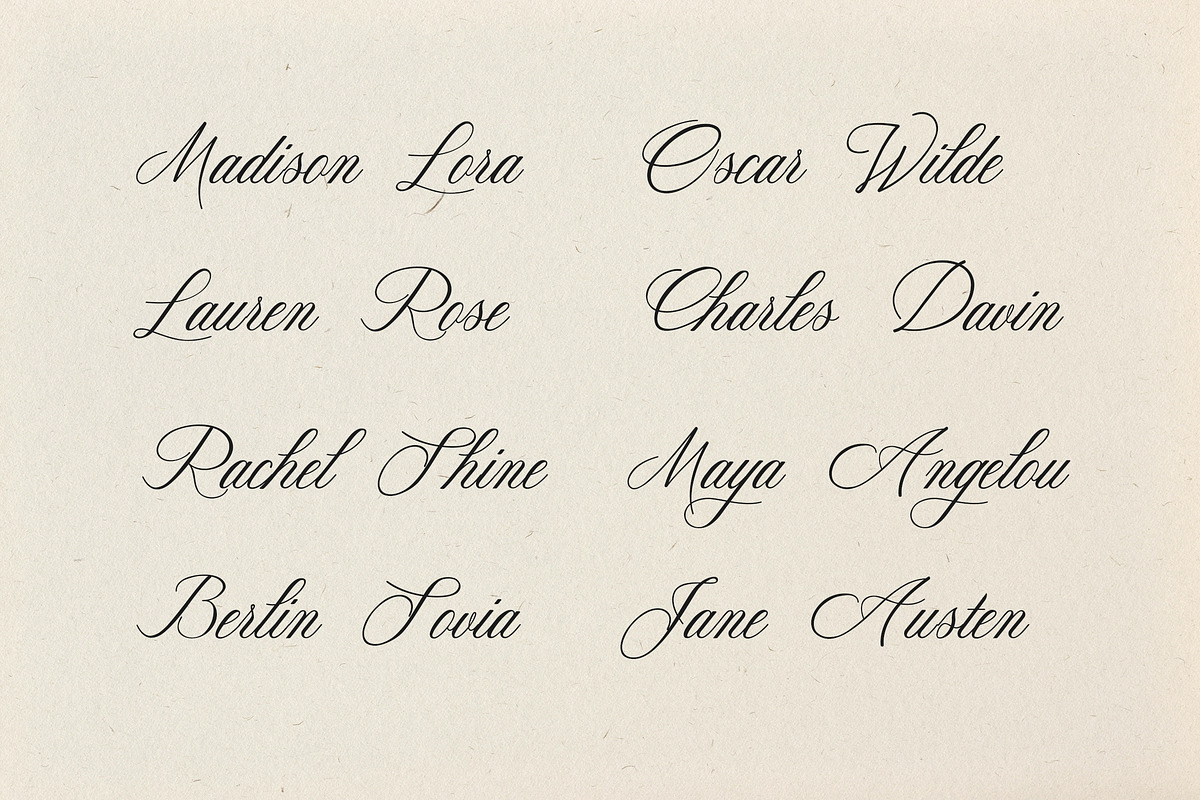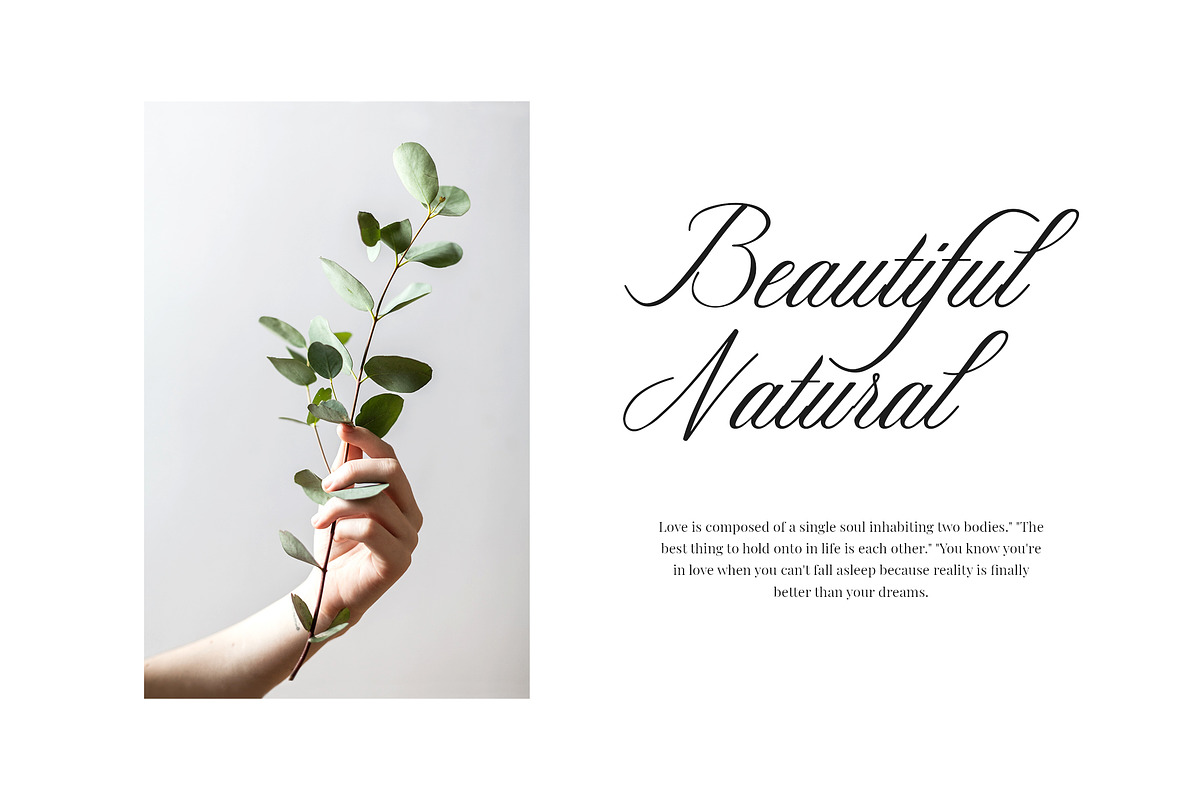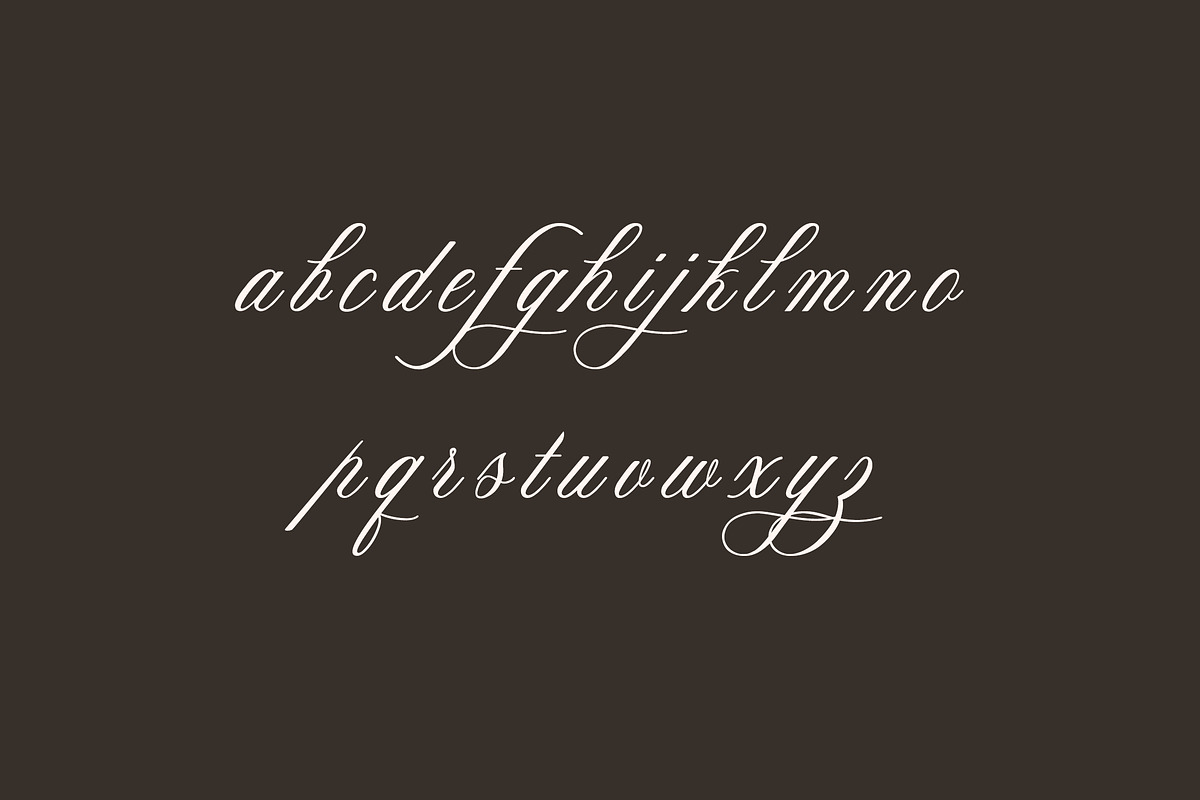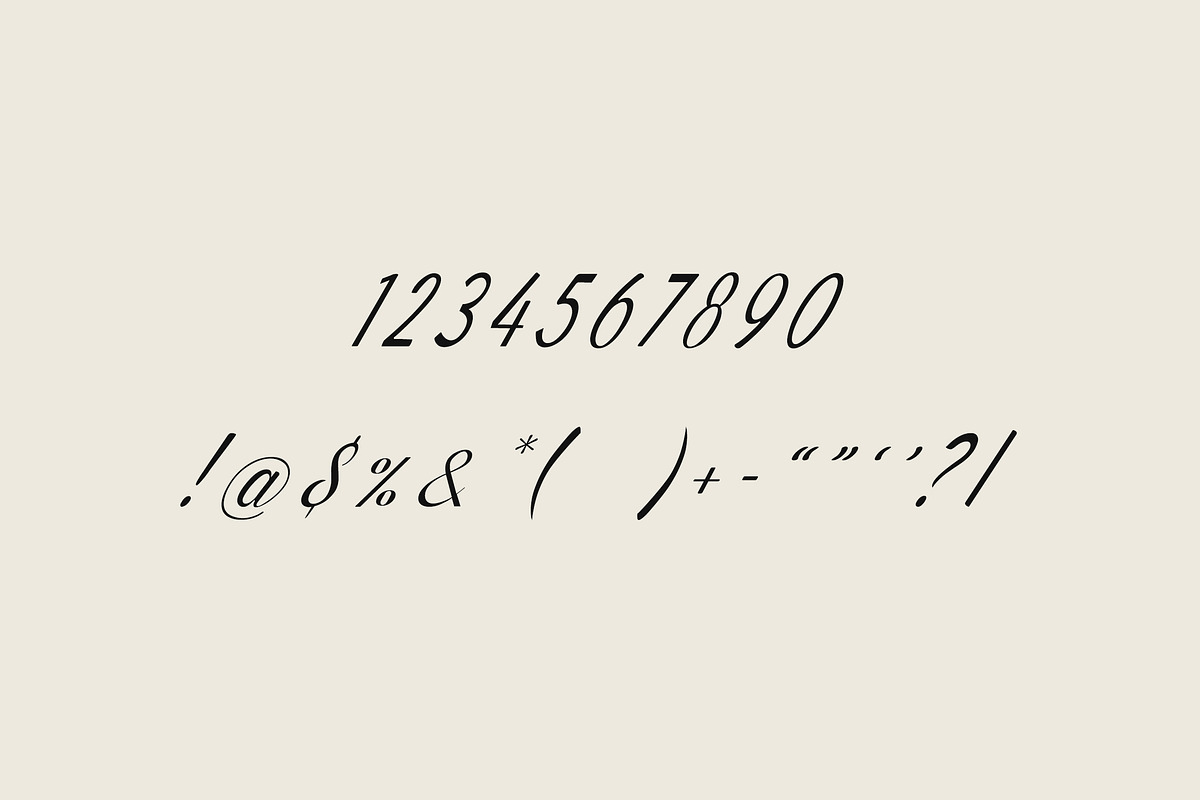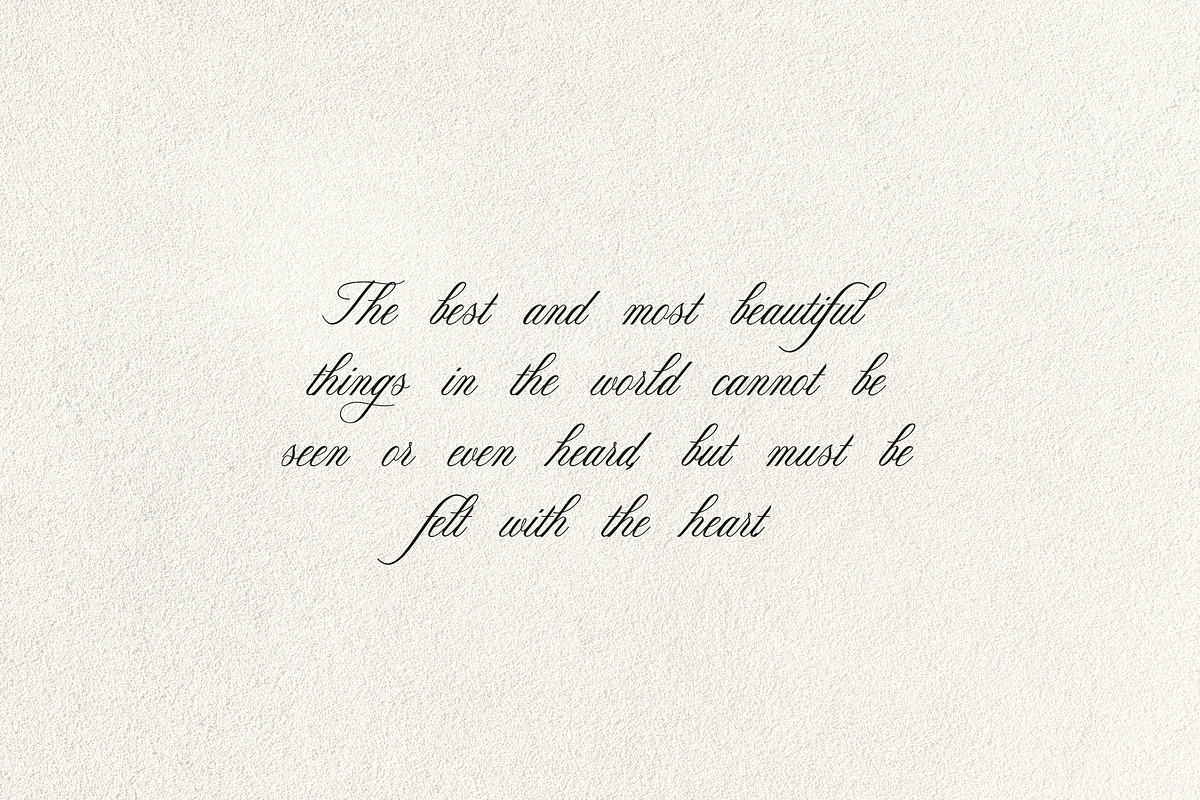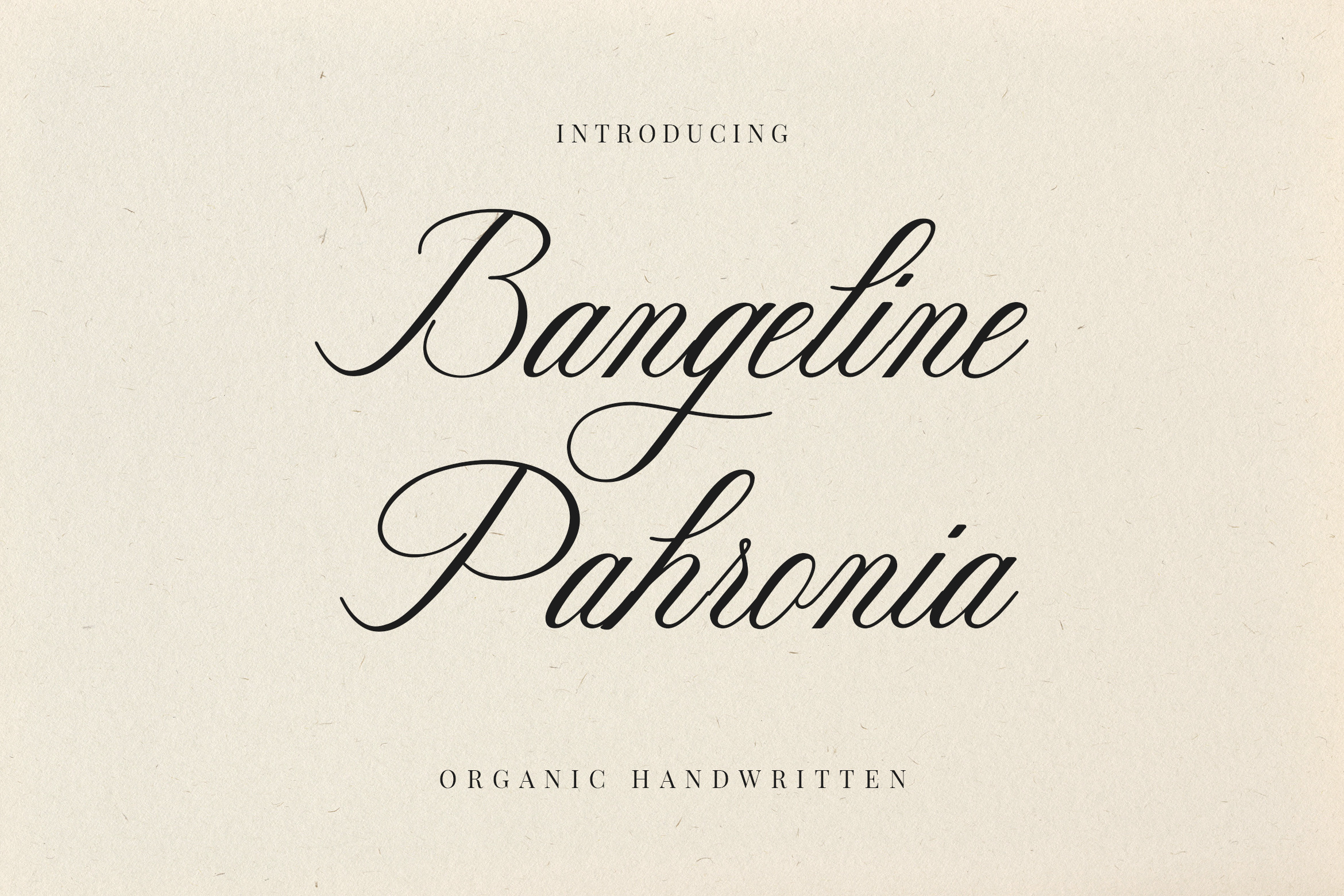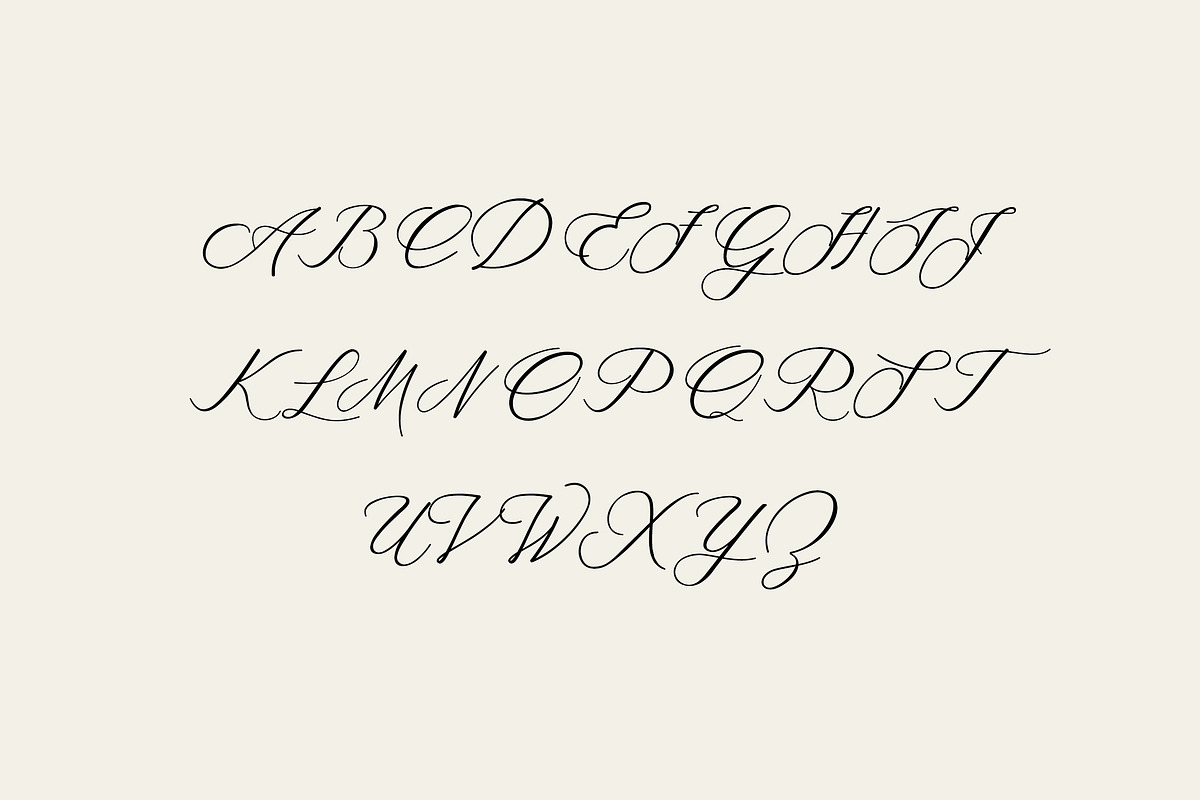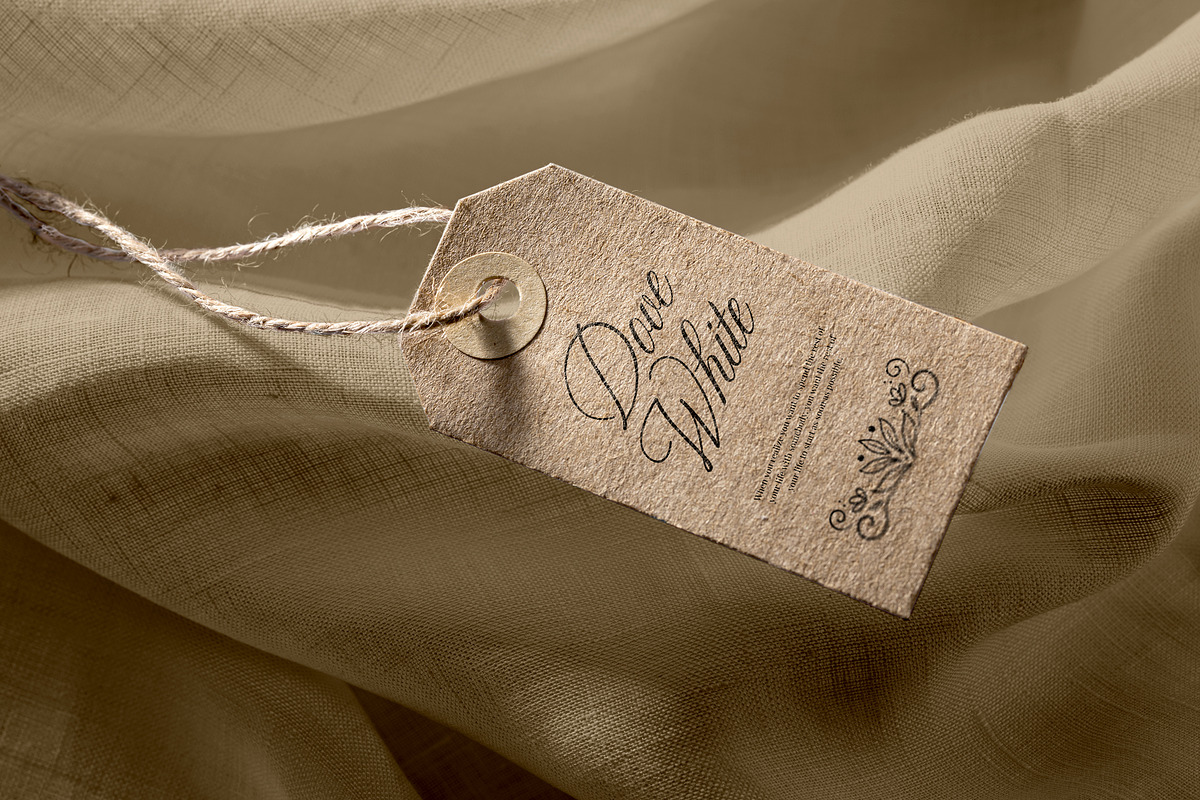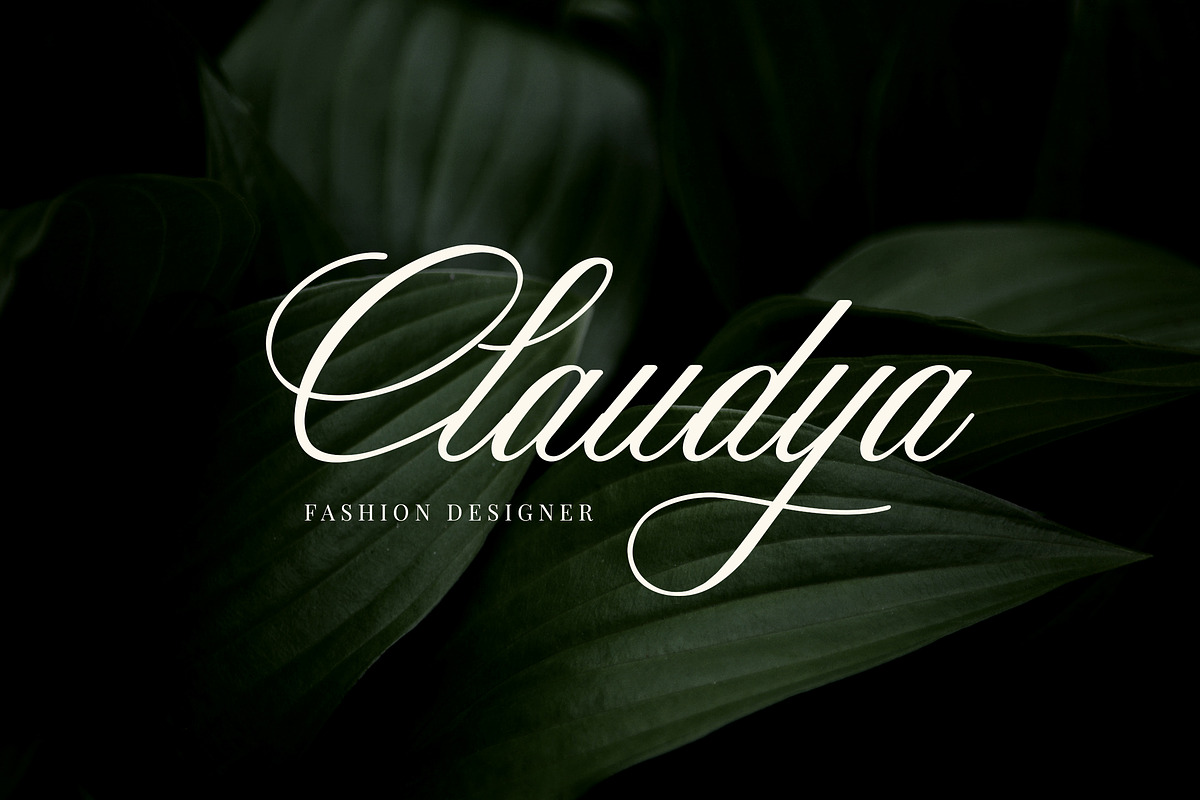
Bangeline Pahronia Calligraphy Font
Introducing our new product the name is Bangeline Pahronia Calligraphy Font. Modern Serif font that feels beautiful classy, elegant, and modern. This font is ideally suited for a wide variety of projects, such as signature, stationery, logo, wedding, typography quotes, magazine or book covers, website headers, clothing, branding, packaging design, and more. Also, fashion-related branding or editorial design displays both masculine and feminine qualities.
The style of the font overall is nice, but the product itself is designed poorly. The kerning is all over the place. Some letters overlap, some look like they have a space between them when they don't. The descending and ascending parts of the lowercase letters do not match up for most combos. When you type a period at the end of a sentence, it's in the middle of the previous letter. Unless you plan to adjust EVERY SINGLE LETTER INDIVIDUALLY when using this font, I advise against purchasing it. Another thing that bothers me is the numbers in this font are thicker than the thickest part of any letter. They do not look nice together visually. I'm really disappointed.